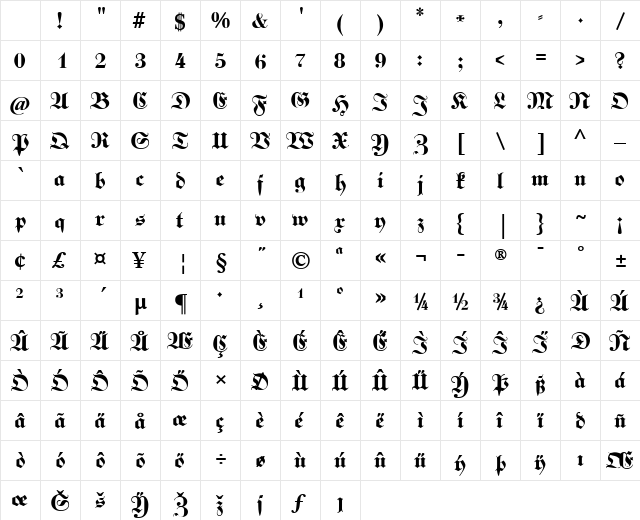
Complete Kabinett Fraktur Bold glyph index. Displaying only characters natively supported by Kabinett Fraktur Bold font.
Kabinett Fraktur draws on the rich tradition of blackletter calligraphy, with dense, angular strokes that evoke medieval manuscripts and old-world craftsmanship. Its bold stroke weight gives it real presence on the page.
Font Pairing: Pair with a clean neutral sans-serif for body copy to let Kabinett Fraktur's character lead without overwhelming the composition.
Pro Tip: Reserve Kabinett Fraktur for display and logo use - pair it with a clean sans-serif for body copy to prevent the composition from feeling oppressive.